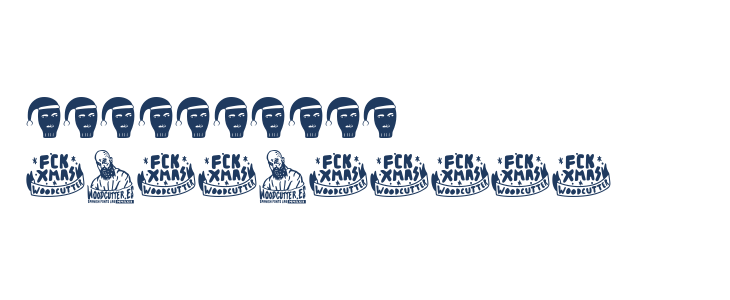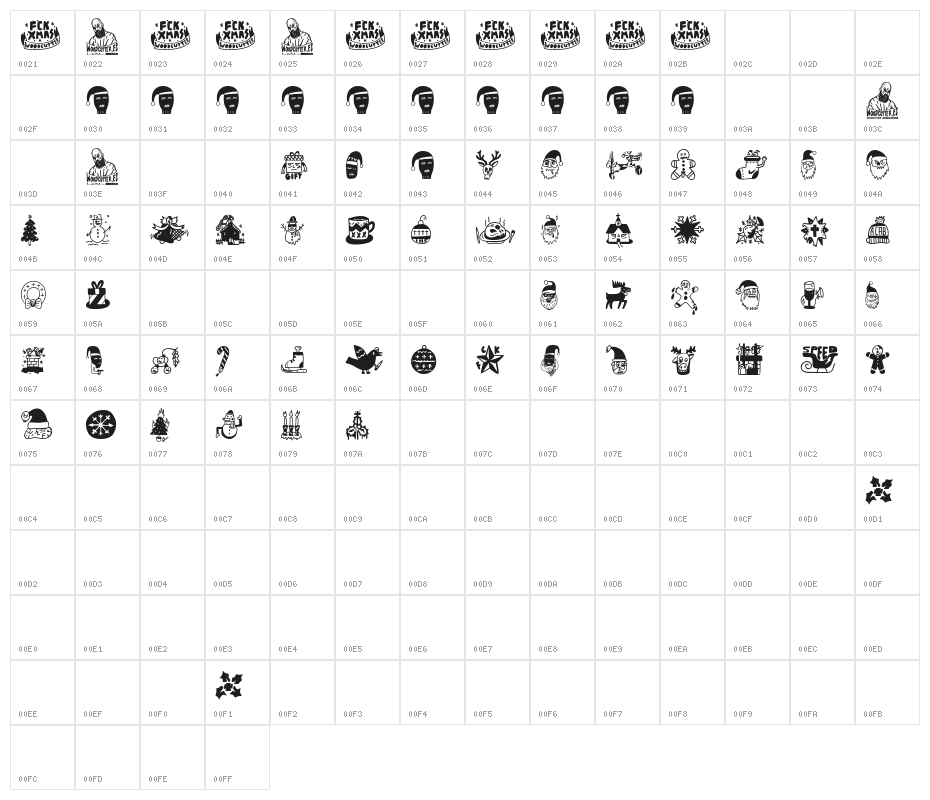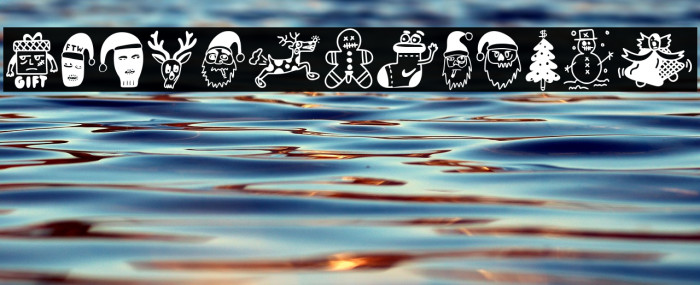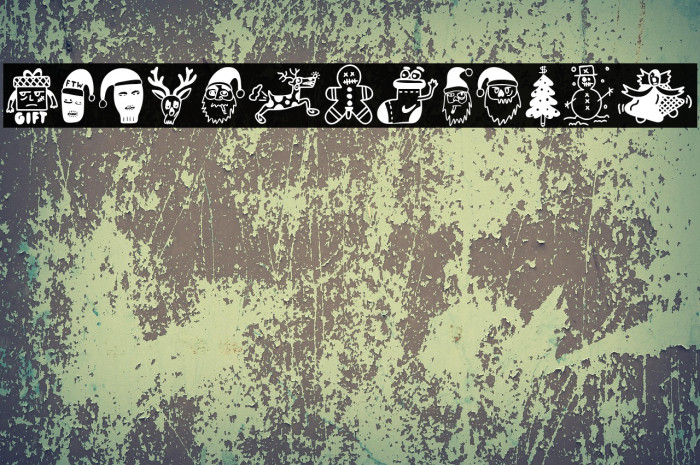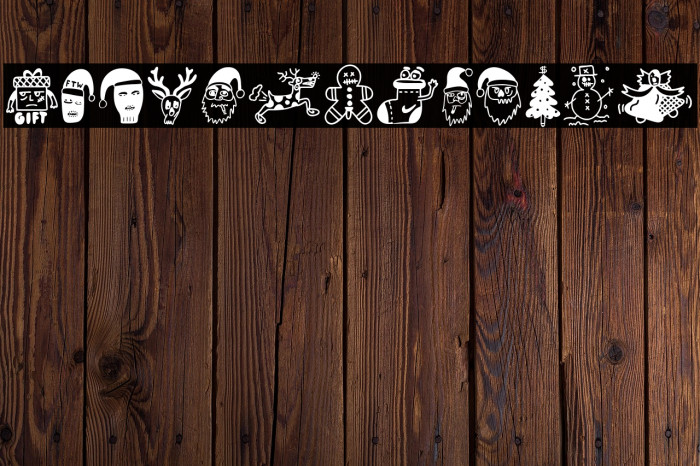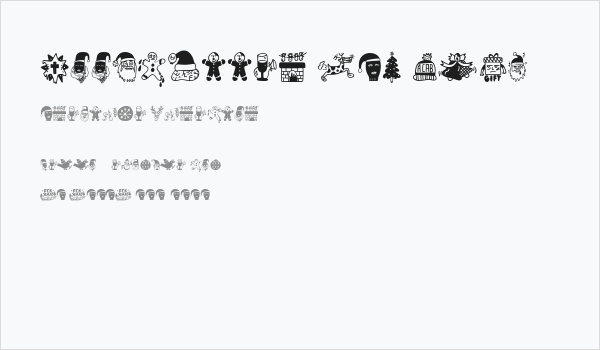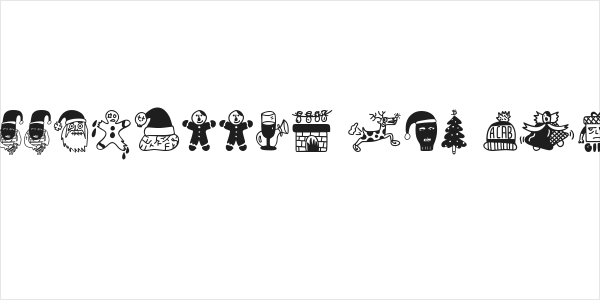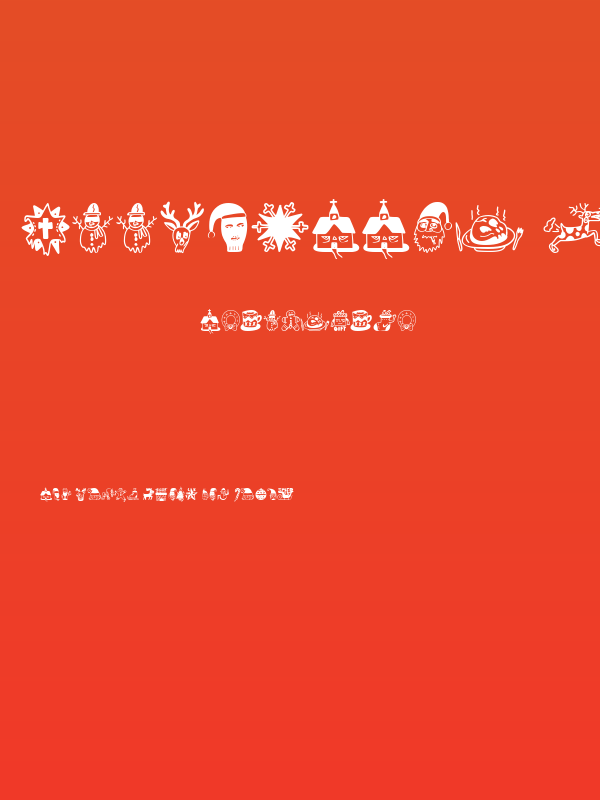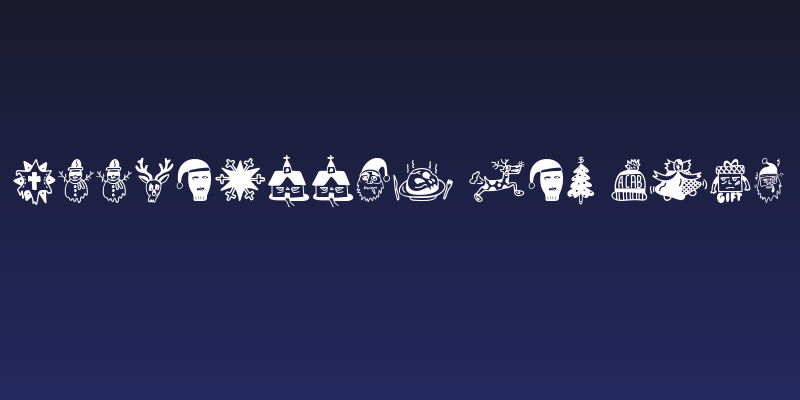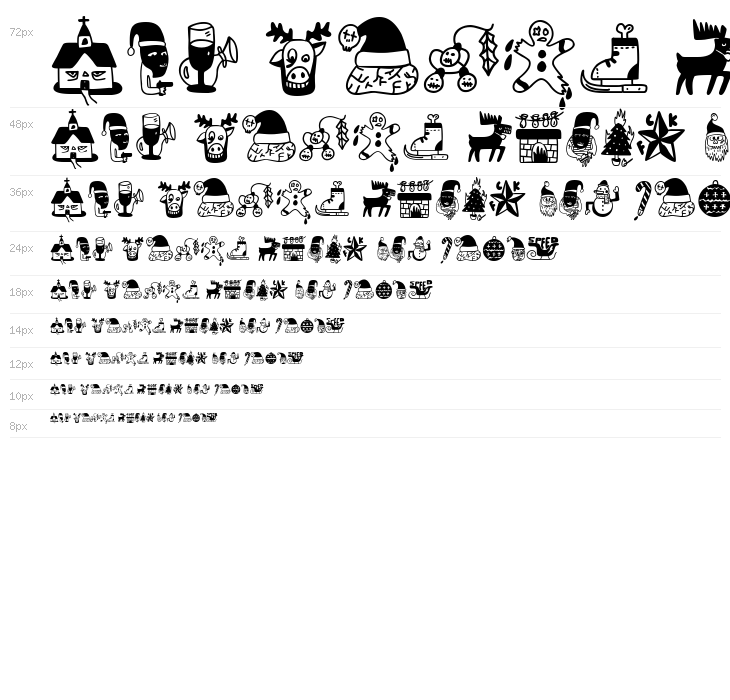
Woodcutter FCK XMAS Font
Woodcutter FCK XMAS Description
This is a decorative and playful font featuring a variety of whimsical and festive illustrations. Each character is represented by a unique Christmas-themed icon, including Santa Claus, reindeer, snowmen, and other holiday symbols. The style is bold and cartoonish, with thick lines and a hand-drawn appearance that adds a touch of humor and charm. The font captures the essence of holiday cheer with a quirky twist, making it ideal for creative and unconventional designs. The characters are intricately detailed, showcasing a mix of traditional and modern elements that appeal to a wide audience.
| Overall Style | Playful, Festive, Whimsical |
| Use Case | Logos, Posters, Greeting Cards |
| Proposed Projects | Ideal for holiday greeting cards, festive posters, playful branding, and creative social media graphics. |